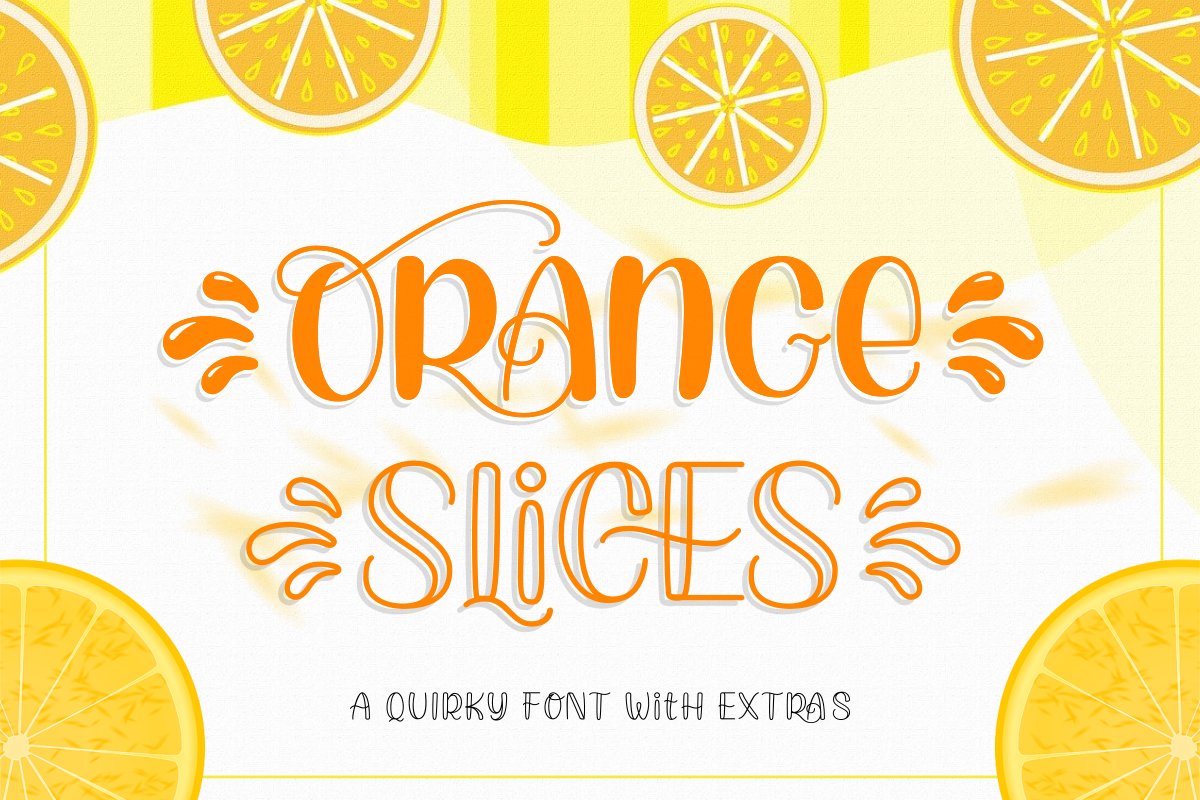
Orange Slices | Quirky Font
Orange Slices is a unique font with 2 style, regular styles and an outline. Along with legitable ligature and unique alternate making it versatile for all your projects.
It is suitable for crafts, packaging, products, displays, invitation, quotes, clothing and other your projects.